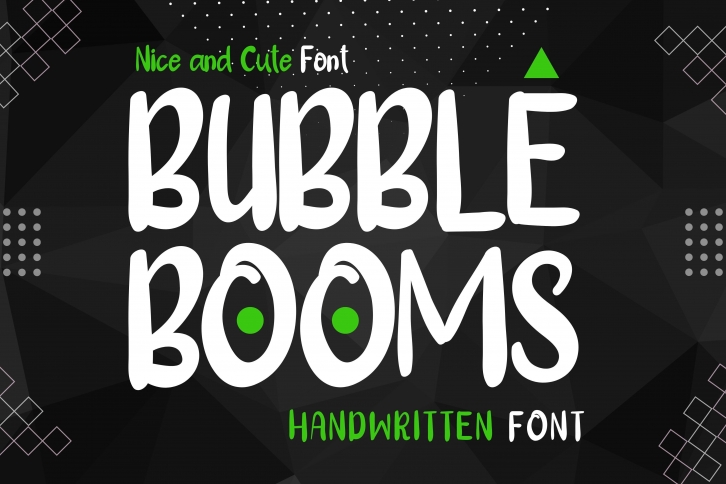
Bubble Booms is a cute and charming handwritten font that’s perfect for many design and craft projects. Add it to your logos, wedding invitations, T-shirts, letterheads, labels, news, posters, badges, and more, and watch how it captures everyone’s heart and attention!